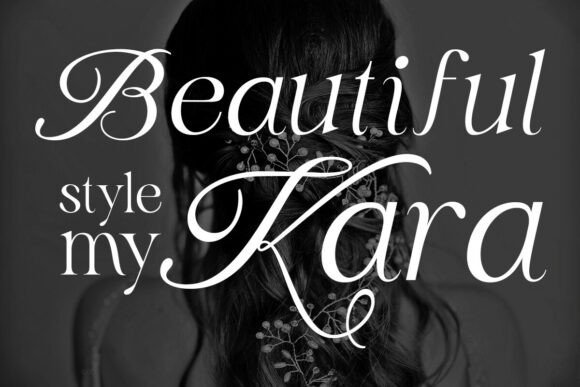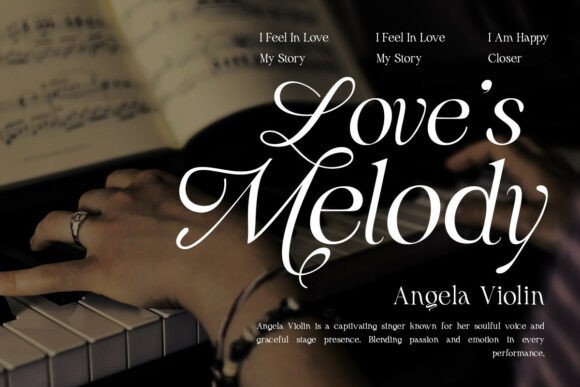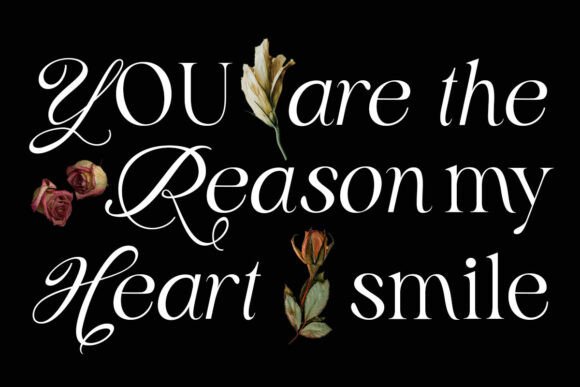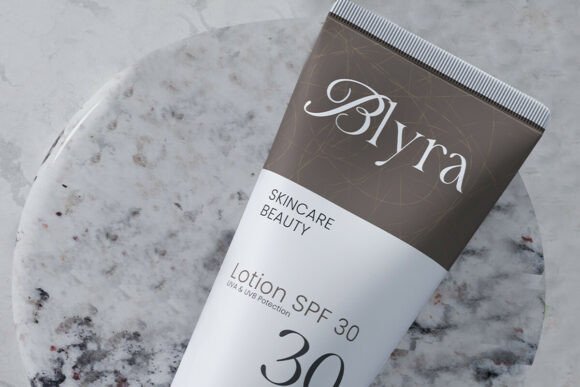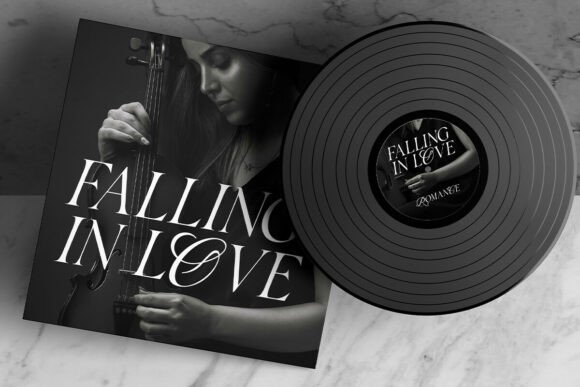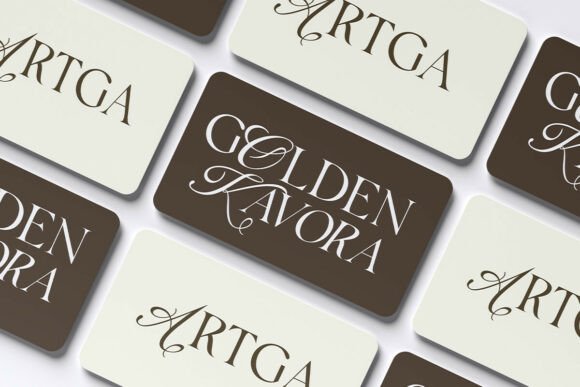
Eterna Churme Font: Elevate Your Designs with Timeless Elegance
In the world of typography, a luxury serif display font can make all the difference in elevating your designs to new heights. Introducing Eterna Churme, a masterpiece of modern sophistication and timeless elegance. This exquisite font is crafted to bring a high-end aesthetic to any design, making it perfect for luxury branding, wedding invitations, fashion editorials, packaging, and social media.
Refined Letterforms and Elegant Curves
Eterna Churme boasts refined letterforms that exude sophistication and poise. Its elegant curves and stylish alternates add a touch of luxury to any text, making it ideal for designers and crafters seeking to create premium-looking designs. The font’s carefully crafted letterforms ensure flawless readability, while its stylish alternates provide a chic ornamental touch.
Premium Kerning and Versatile Features
One of the standout features of Eterna Churme is its premium kerning. The font’s kerning has been meticulously adjusted to ensure that every letter combination looks harmonious and visually appealing. Additionally, Eterna Churme comes with versatile features that make it easy to customize and adapt to various design needs. Whether you’re creating a logo, heading, or paragraph text, this font has got you covered.
PUA-Encoded for Effortless Customization
Eterna Churme font is also PUA-encoded, making it easy to access all glyphs, swashes, and alternate characters. This feature allows designers and crafters to customize their creations with ease, adding a personal touch to their designs. With PUA encoding, you can effortlessly navigate the font’s extensive character set and create unique and stunning designs.
Ideal for Luxury Branding and High-End Designs
Eterna Churme is the perfect choice for luxury branding, wedding invitations, fashion editorials, packaging, and social media designs. Its iconic elegance and refined aesthetic make it an excellent fit for high-end designs that require a touch of sophistication. Whether you’re creating a brand identity, advertising materials, or editorial content, Eterna Churme will elevate your projects and give them a premium look.
Key Features of Eterna Churme Font
• Luxury serif display font with refined letterforms and elegant curves
• Stylish alternates and premium kerning for flawless readability
• PUA-encoded for effortless access to glyphs, swashes, and alternate characters
• Ideal for luxury branding, wedding invitations, fashion editorials, packaging, and social media
• Versatile features for customization and adaptation to various design needs
In conclusion, Eterna Churme font is a game-changer for designers and crafters seeking to elevate their designs with timeless elegance and modern sophistication. Its refined letterforms, elegant curves, and stylish alternates make it perfect for luxury branding and high-end designs. With premium kerning, versatile features, and PUA encoding, Eterna Churme is the ultimate choice for creating stunning designs that exude sophistication and poise. Try it now and give your designs a refined, premium look!